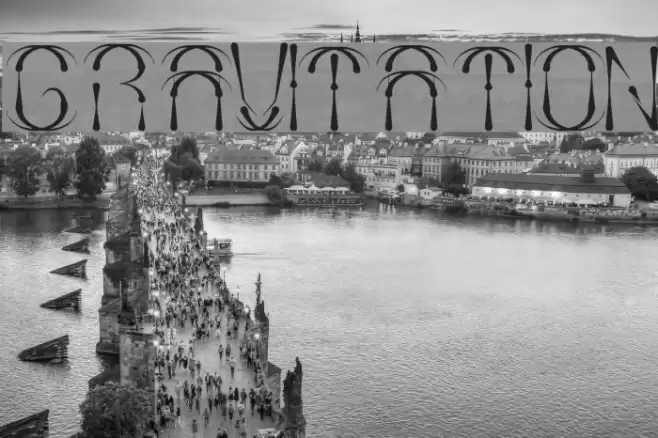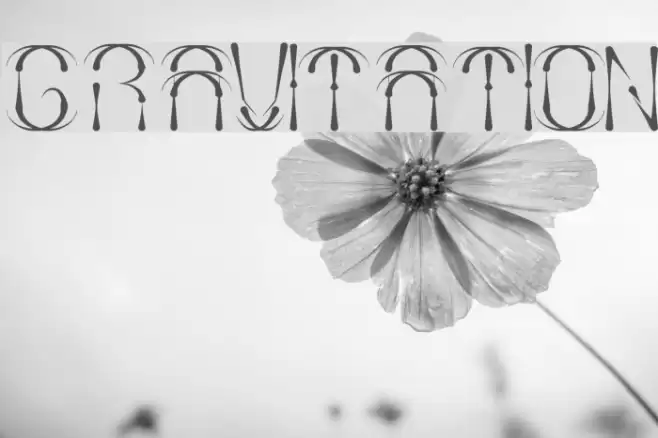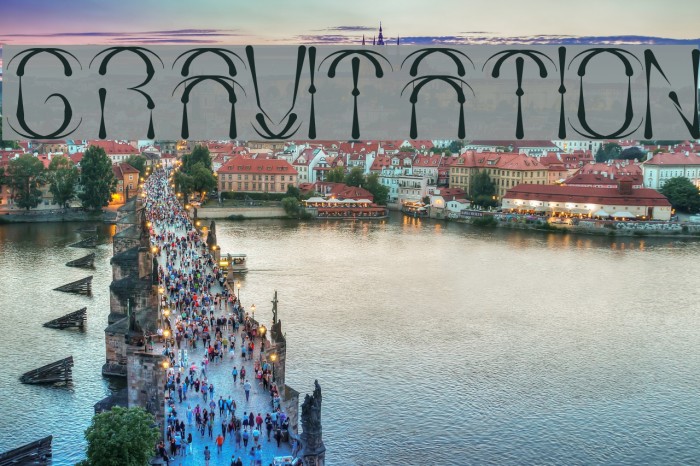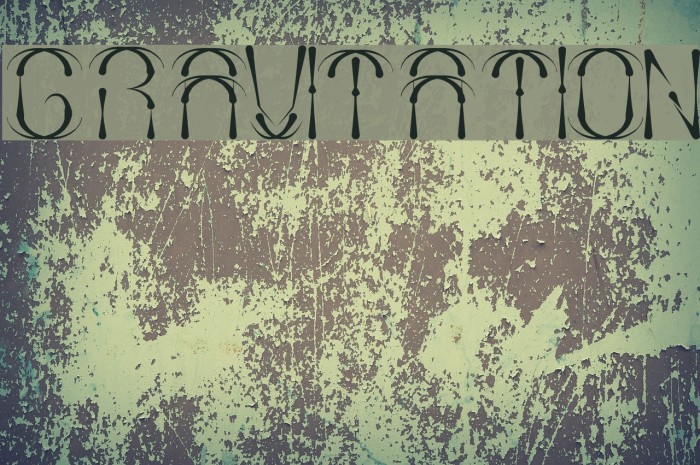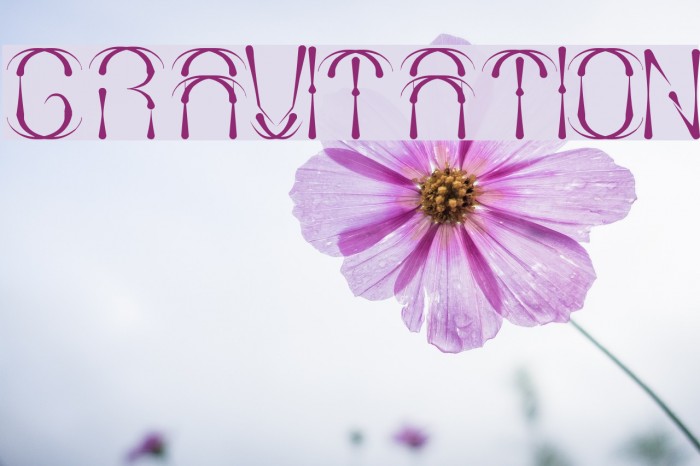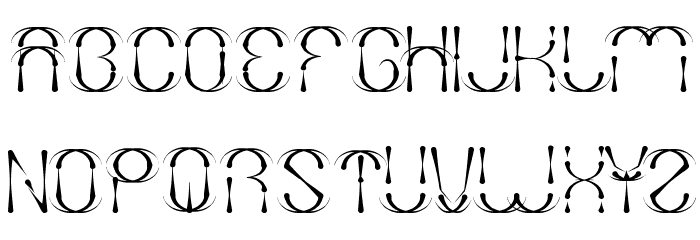
gravitation Font
gravitation Description
This font features a unique and intricate design, characterized by its decorative and artistic elements. Each letter is adorned with elaborate curves and loops, creating a sense of movement and fluidity. The strokes are bold and consistent, with a medium contrast between thick and thin lines. This font stands out with its ornamental style, making it ideal for creative and expressive projects. The overall appearance is both modern and artistic, offering a distinctive look that captures attention. The spacing between characters is normal, allowing for readability while maintaining its decorative appeal.
An artistic and decorative font with intricate curves and loops from Uncategorized fonts.
- Proposed Projects: Ideal for creative projects such as logos, posters, and artistic displays.
- Overall Style: Modern, Artistic
- Use Case: Logos, Posters, Artistic Displays